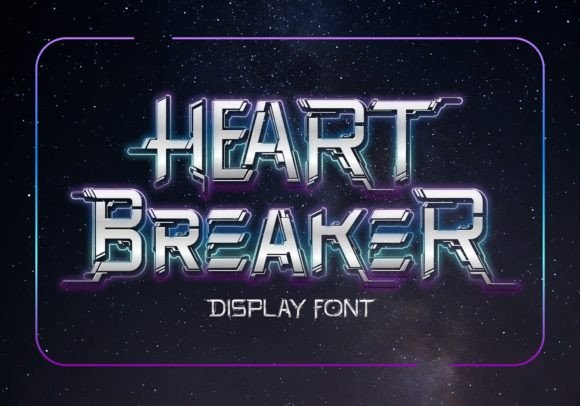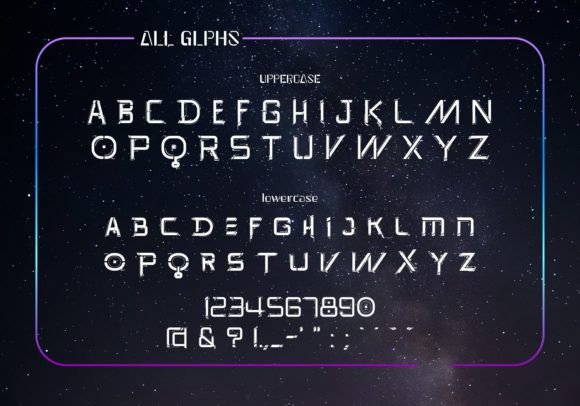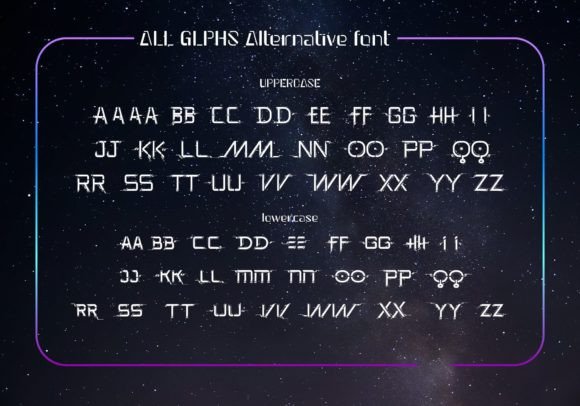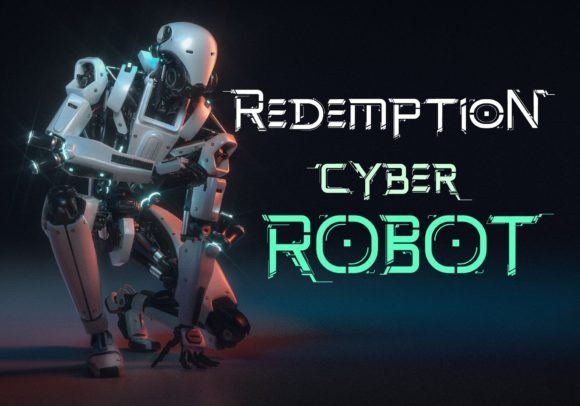
Heart Breaker Font
About the Heart Breaker Font
The Heart Breaker Font offers a perfect balance of form and function for your design needs. Heart Breaker is a sci-fi display font, perfect for science projects, sci-fi movies, e-sport advertising, posters, and more. This font is PUA encoded, which means you can access all of the glyphs and swashes with ease!
Heart Breaker’s strong, angular forms make it ideal for headlines, posters, and branding projects needing a bold, futuristic feel. Its unique glyphs are perfect for eye-catching logos or short, impactful statements. However, its condensed letterforms and high x-height make it less suitable for body text or UI elements requiring high readability over long passages.
Consider pairing Heart Breaker with a clean sans-serif like Open Sans for body copy, providing a strong contrast while maintaining a modern feel. For a more playful aesthetic, a rounded geometric sans-serif such as Circular Std could work well, softening the aggressive angles of Heart Breaker.
The font exudes a rebellious, high-energy personality, suitable for brands targeting a younger demographic interested in technology, gaming, or science fiction. Avoid using it where a more refined or classic aesthetic is desired.
Heart Breaker Font Usage Examples
Heart Breaker Font Example